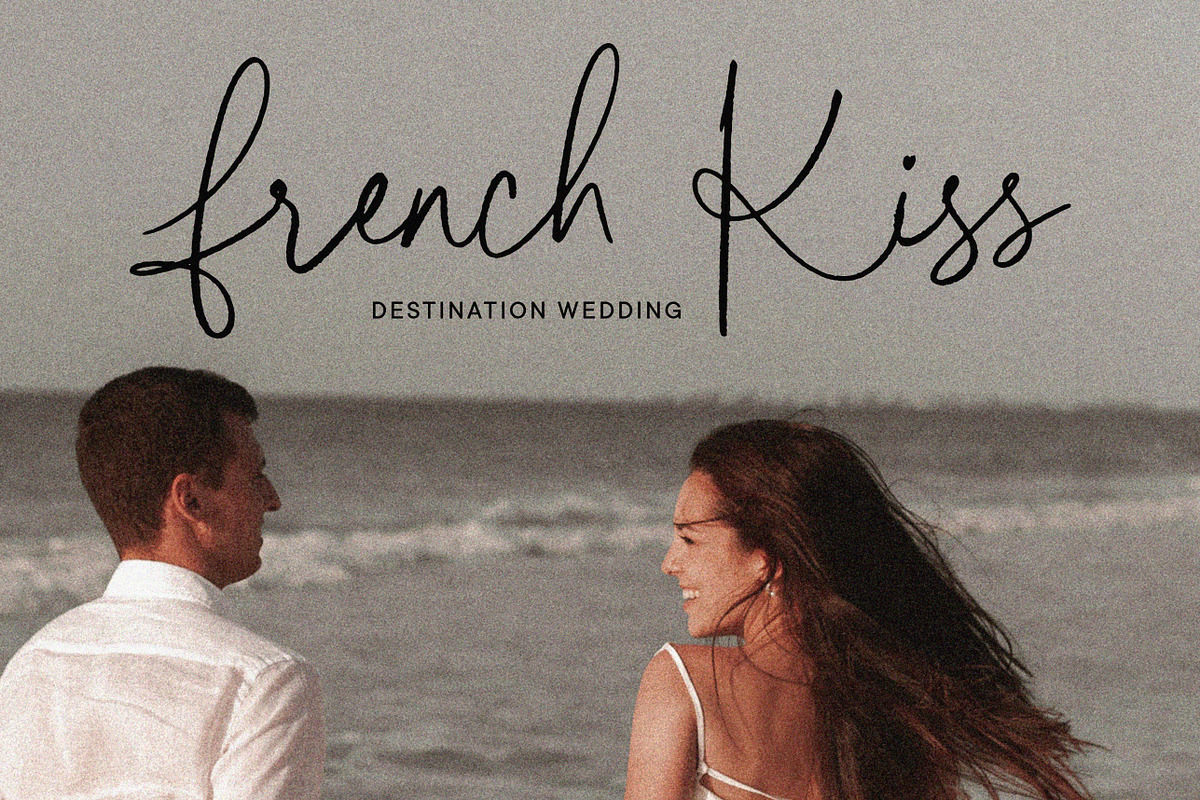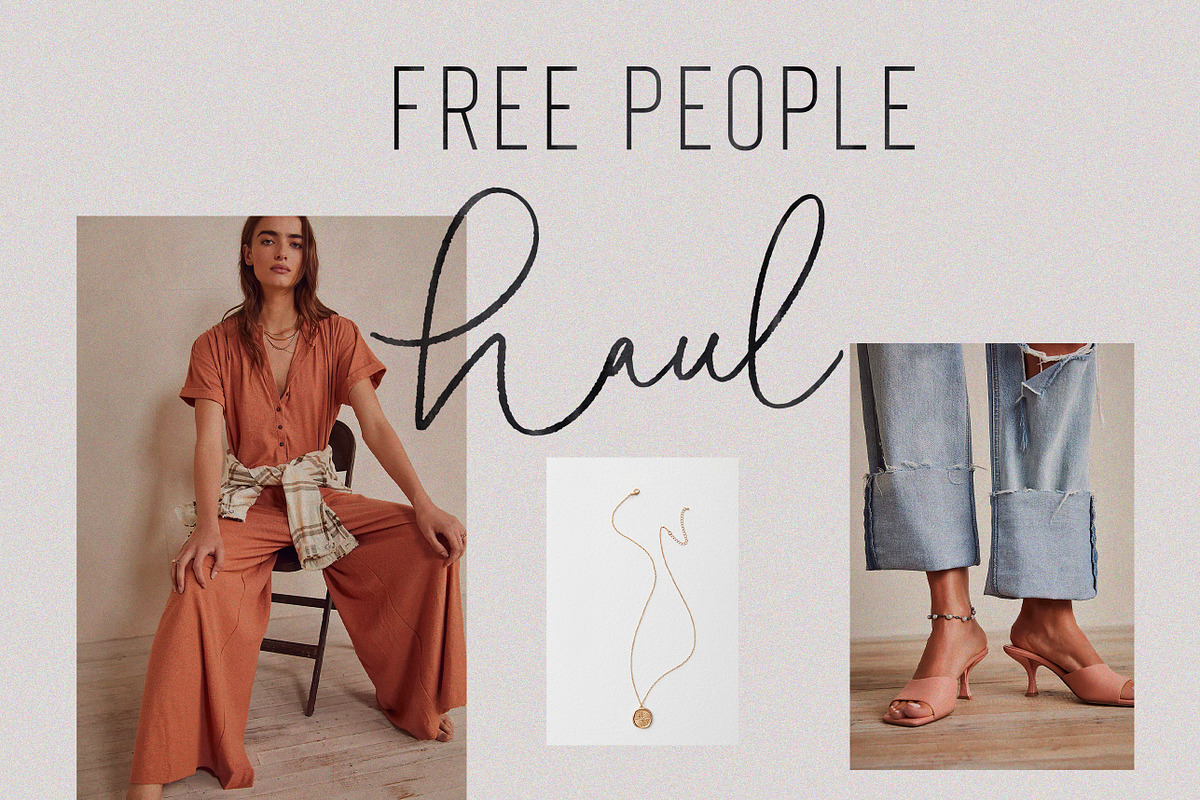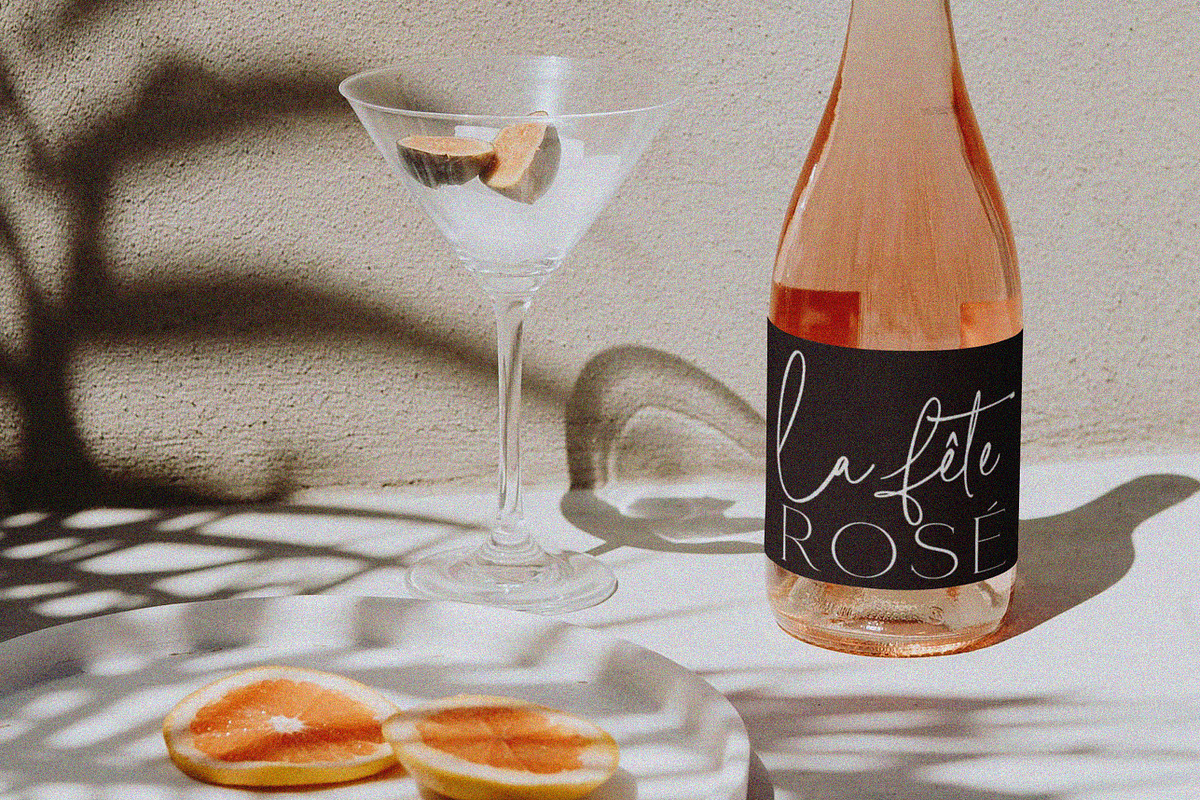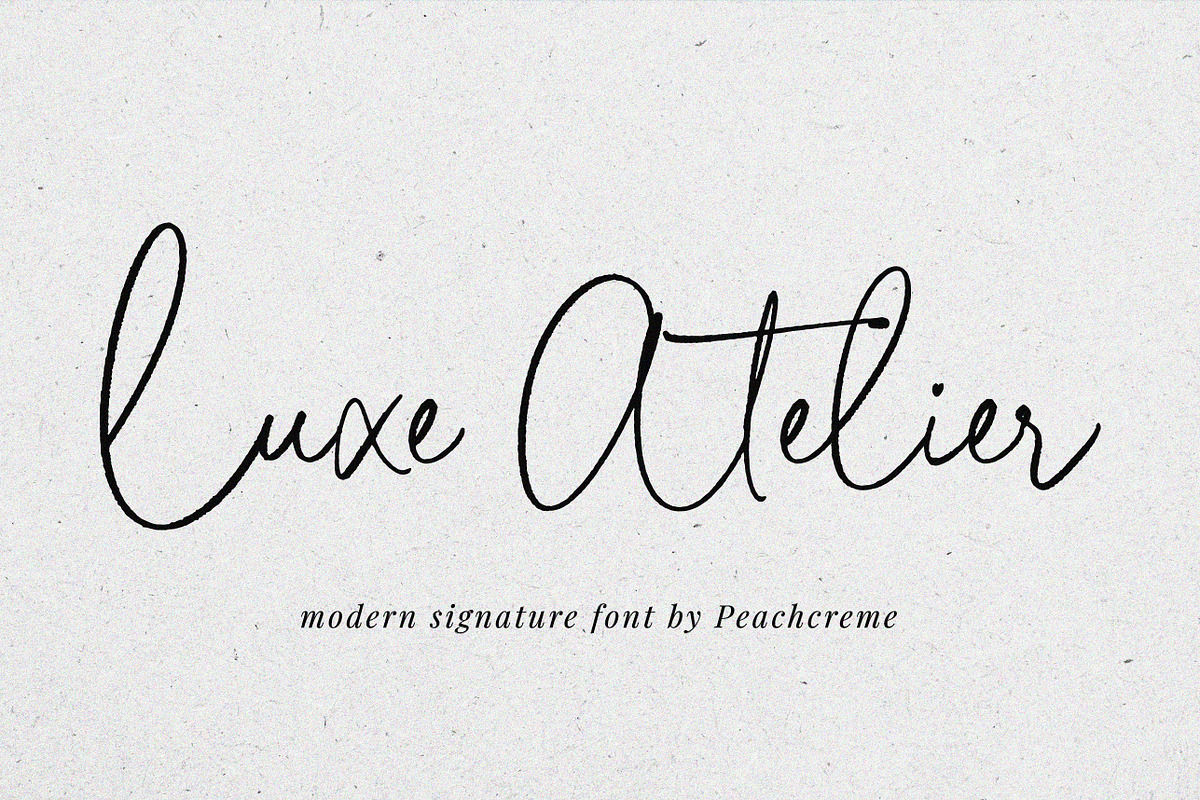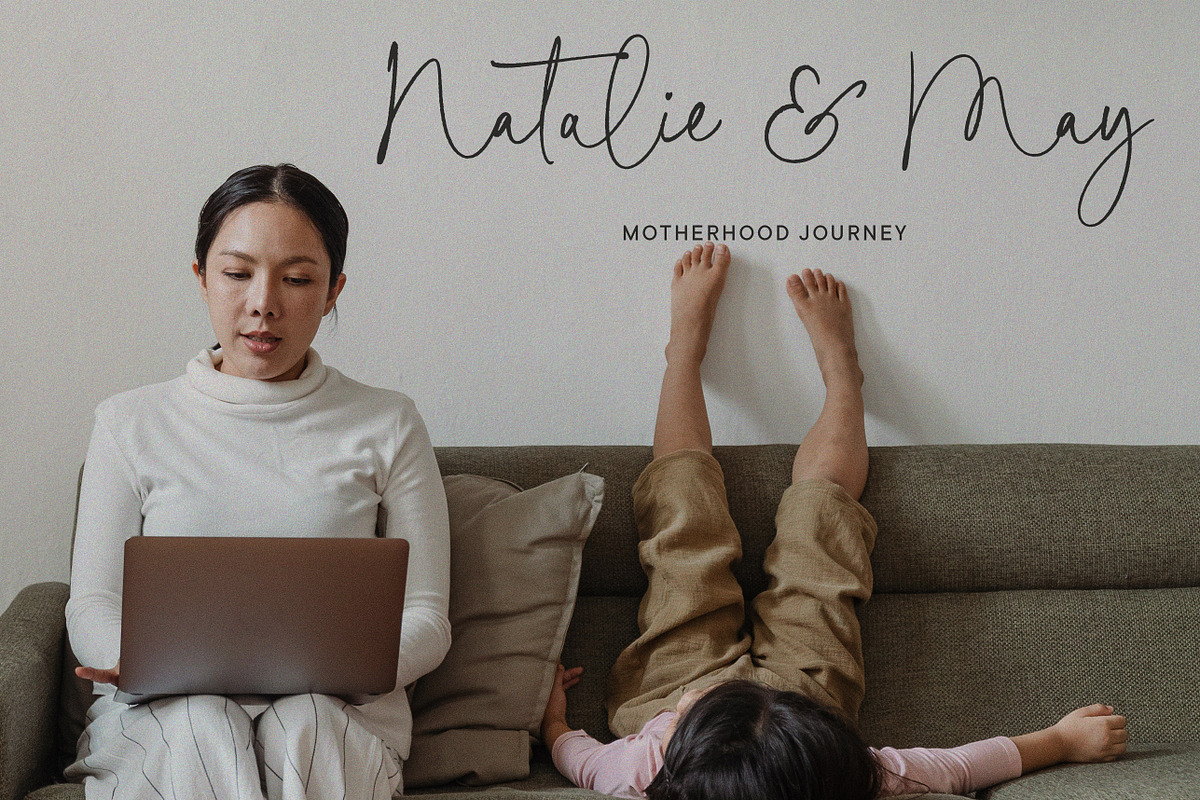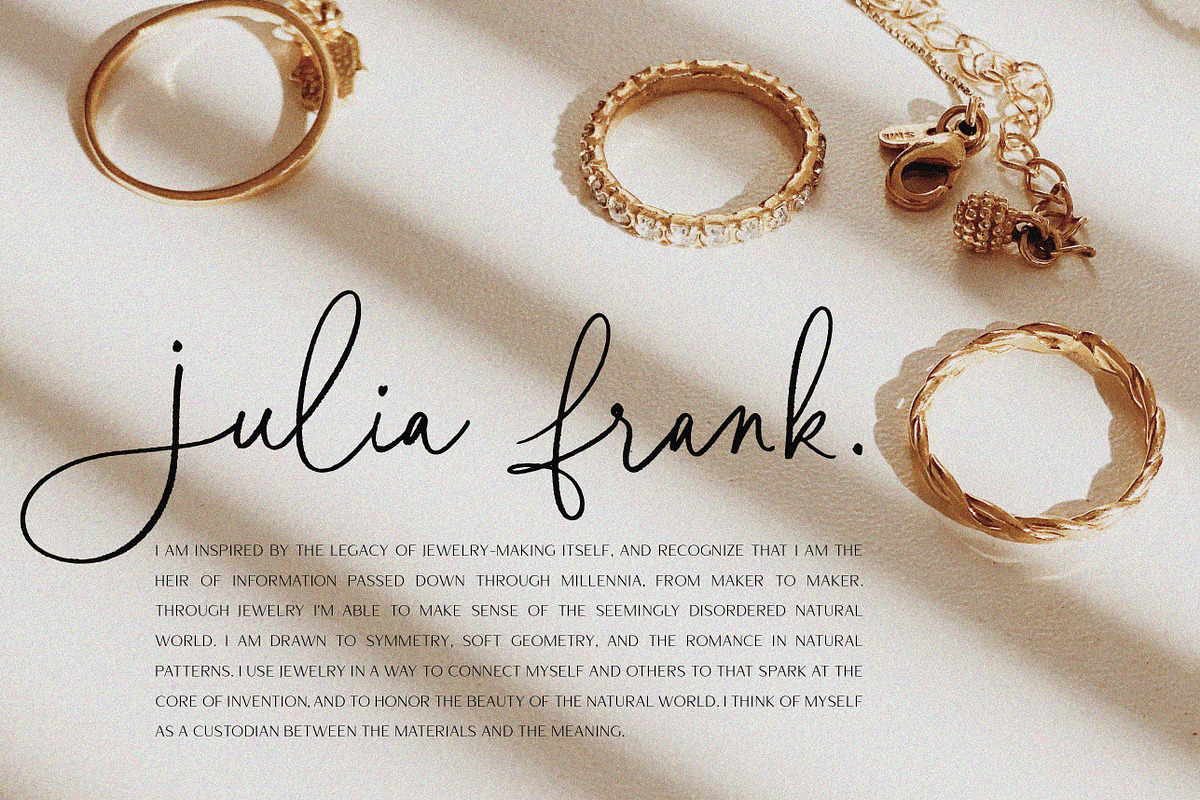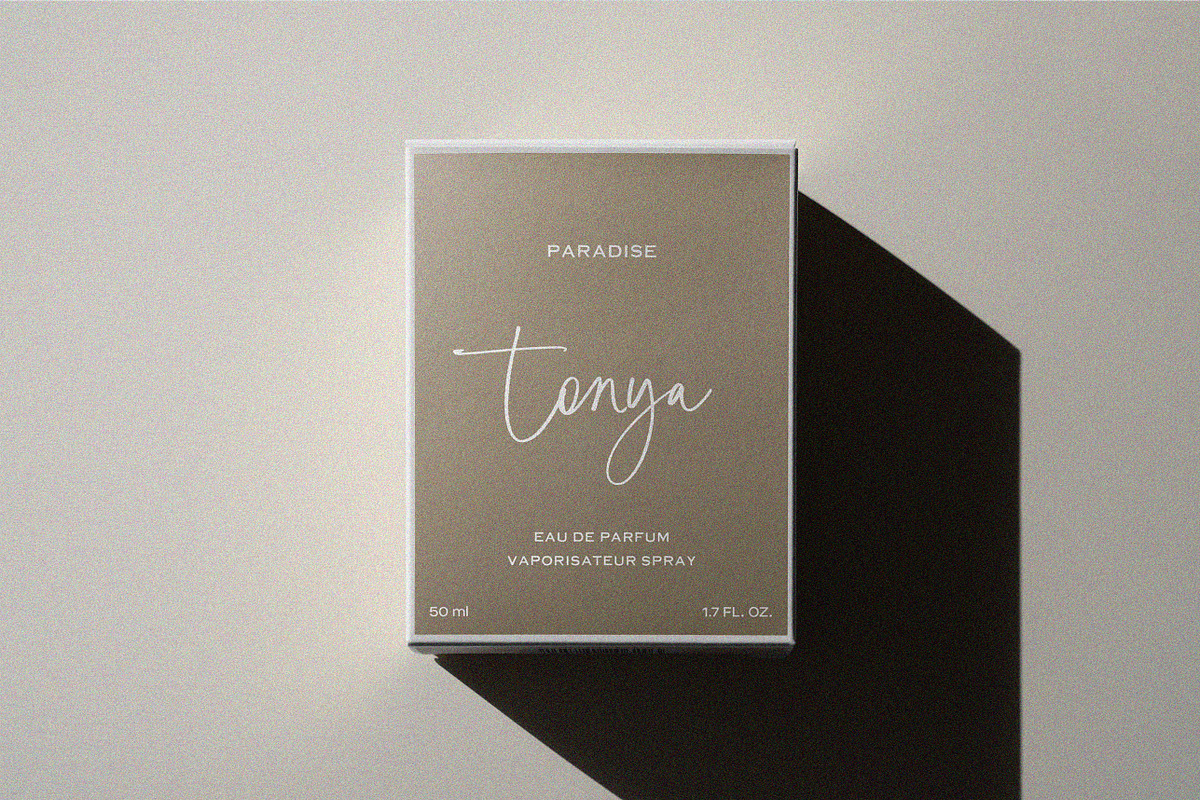
Luxe Atelier // Modern Script Font
Hey guys! Meet our new font "Luxe Atelier" which is inspired by a bit quirky but still lovely handwriting. When we launched our font "Lolita" in 2019 many liked the way we replaced some uppercase letters with lowercase ones. The response was overwhelmingly positive. The feedback we received inspired us to refine the idea of the lowercase signature style and we created "Luxe Atelier" with a lot more lowercase letters that give an uppercase look. However, some uppercase letters simply cannot be written as lowercase due to their nature: they would just lose their primary sound. For example, when we tried writing lowercase 'e' in the uppercase style it more resembled lowercase 'l' and affected the legibility of the font. Therefore some letters in this font remained as is. When it comes to other letters, we tried maximally to keep the lowercase style. This playful, non-standard signature font with slightly rough edges includes 37 ligatures which will definitely add realistic handwritten character to your designs. It is perfect for branding, signatures, weddings and so much more.